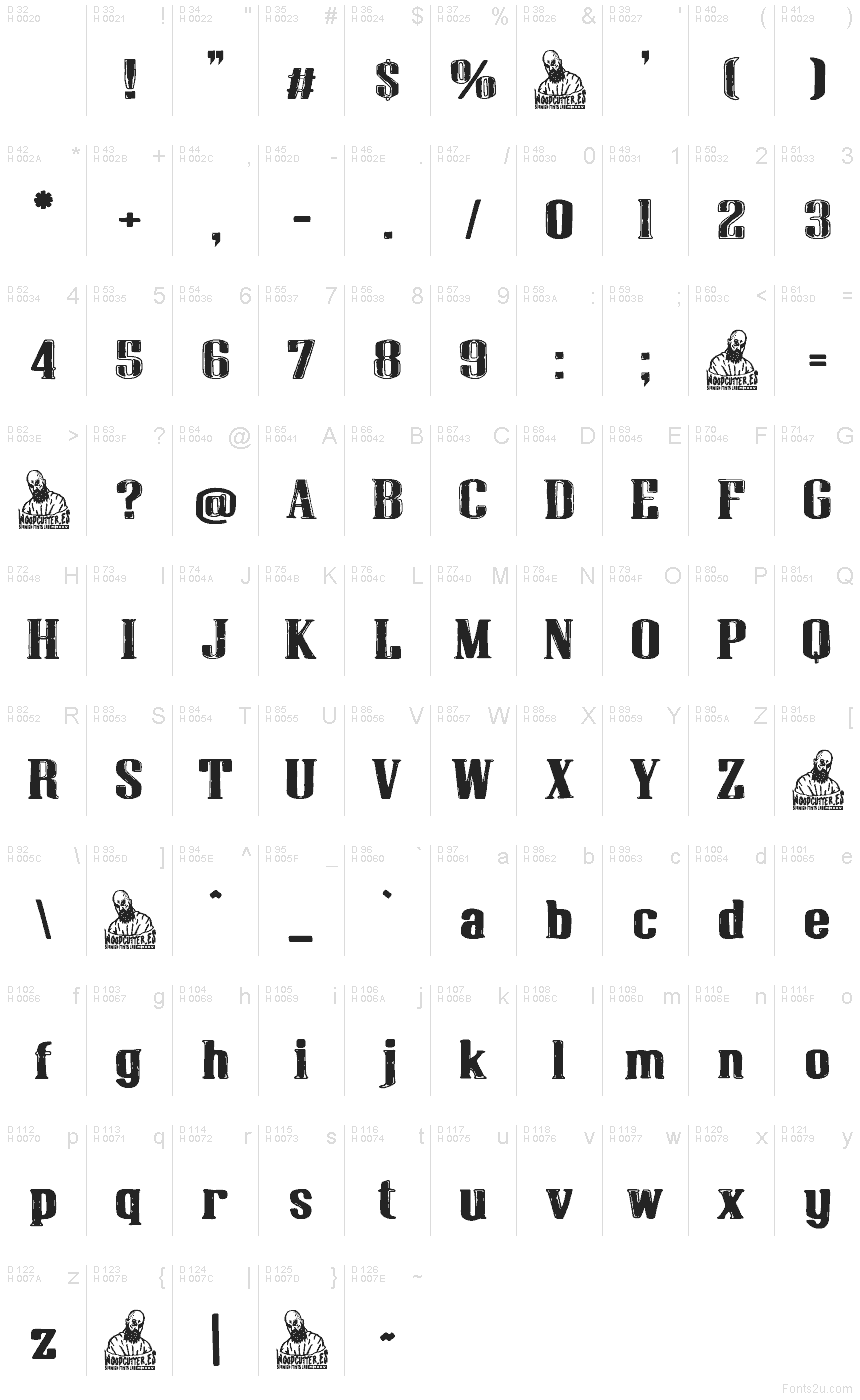
Fine Garden Hotel
Fine Garden Hotel font by Woodcutter is a bold eroded display typeface with its feet set in history. It exhibits vintage and historic features along the rough edges of its body, and within its inner fine detailing and creativity. Serif characteristics are clearly seen in this free font that was designed to make any view drop their jaws at first sight!
Use Fine Garden Hotel for magazine covers, books on historic civilization or old tales of real-life heroes. Its use in posters, flyers, labels, branding projects packages such as that of colonized era beverages is popular too! Blog headers and digital typography never looked better than they do with this decorative font!